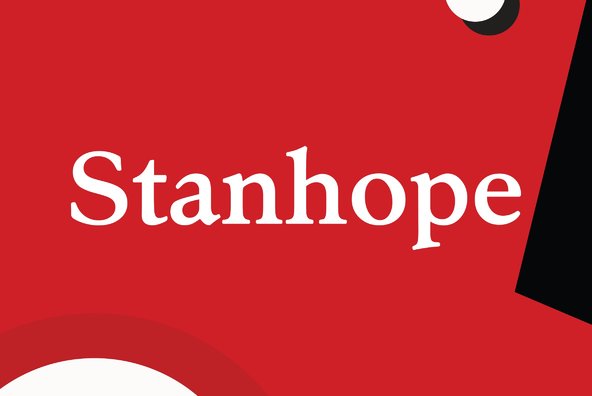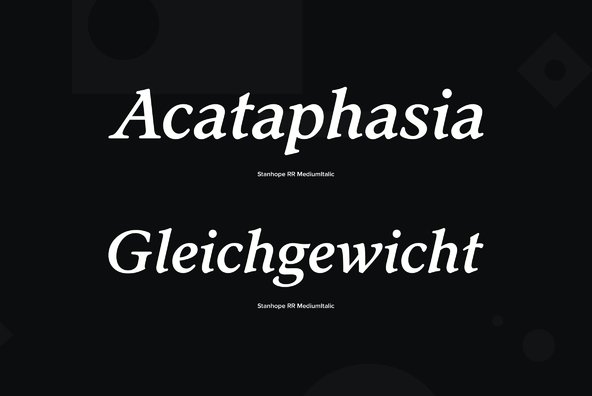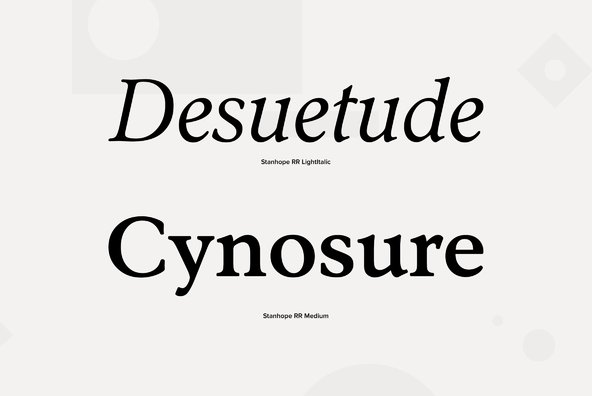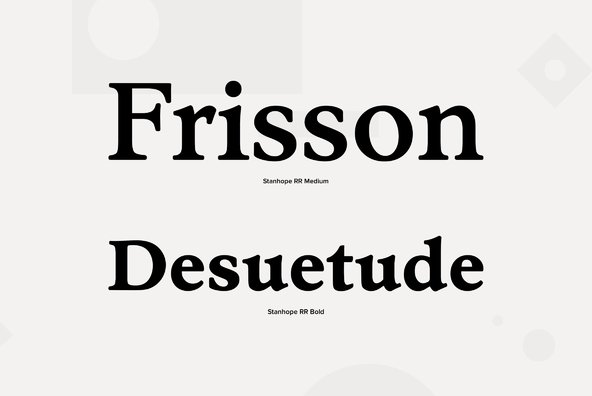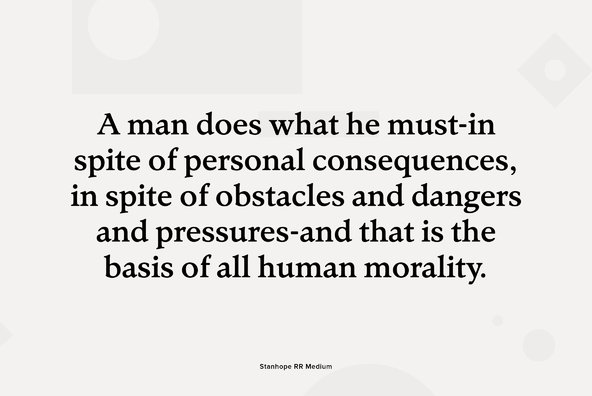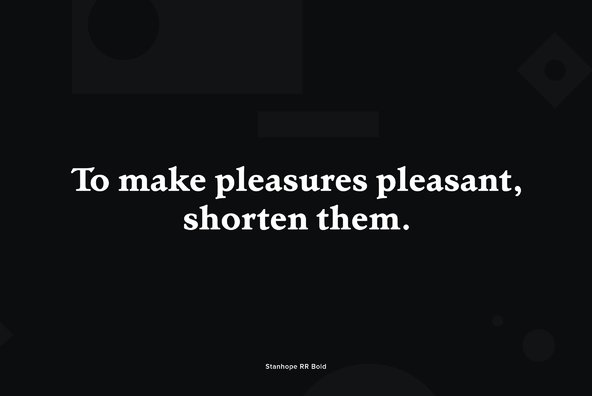
Stanhope
Designed by Les Usherwood. Digitally engineered by Paul Hickson. Les based the design on a turn-of-the-century typeface of the same name. The foundry is believed to be Soldans & Payvers, circa 1904.